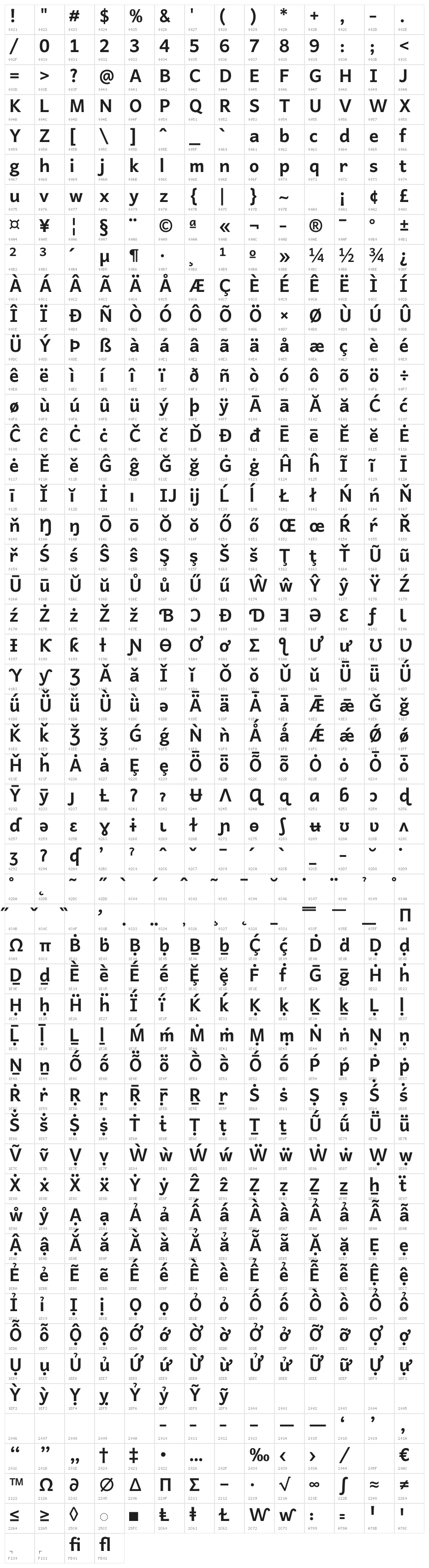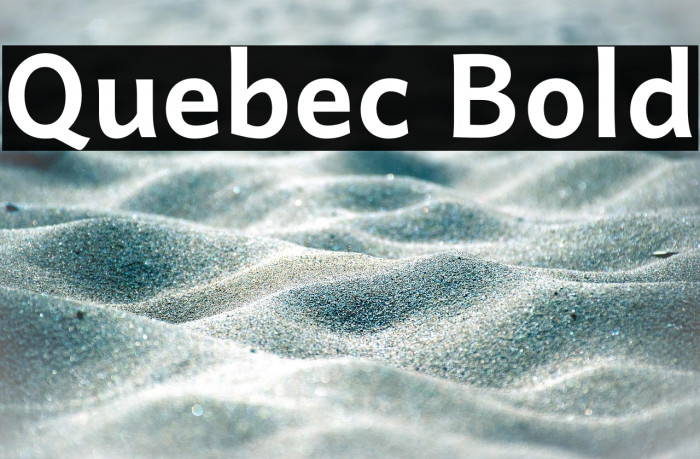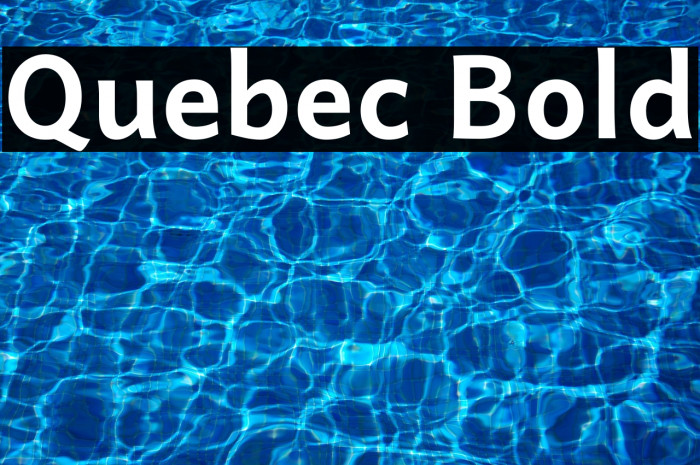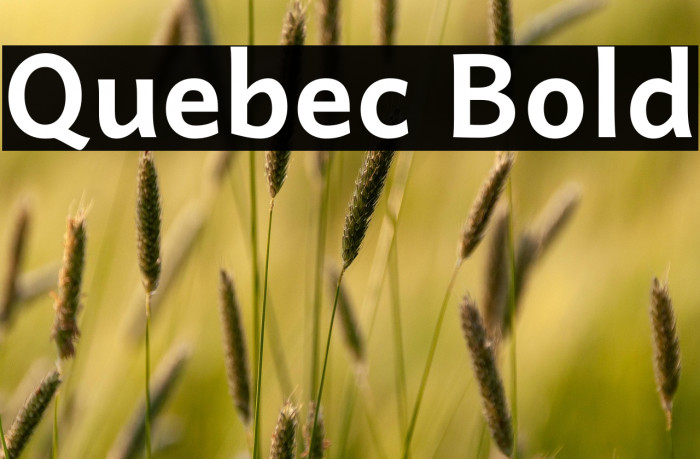
Quebec Bold Font
Quebec Bold Description
This font features a bold and assertive style, characterized by clean lines and a modern sans-serif appearance. The uppercase letters are uniform in height, providing a consistent and balanced look. The lowercase letters maintain a similar width, ensuring readability and clarity. The numerals are straightforward and align well with the overall design, making them suitable for various applications. Special characters are distinct and well-defined, complementing the font's overall aesthetic. This font is versatile, offering a contemporary feel that is both professional and approachable.
| Proposed Projects | Ideal for branding, advertising, headlines, and digital media projects. |